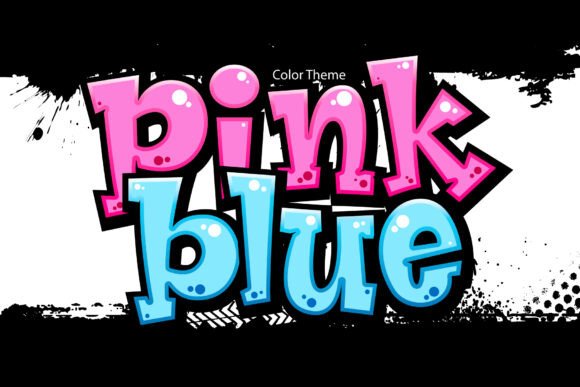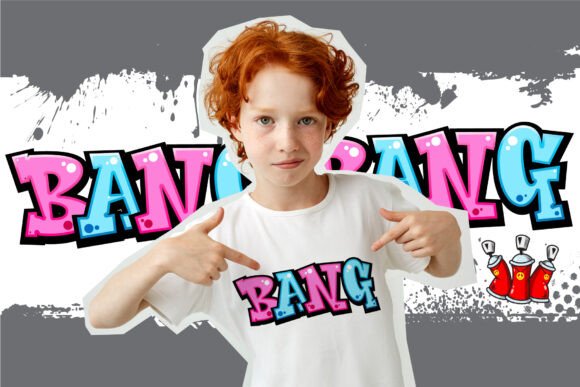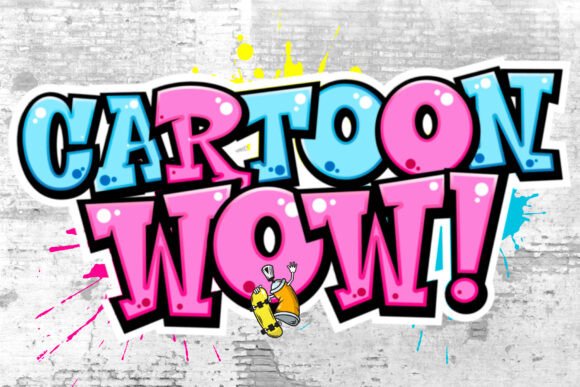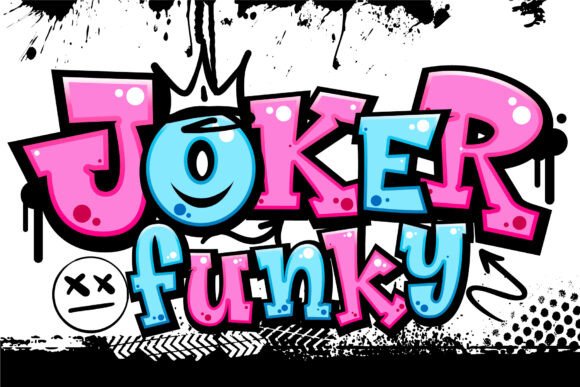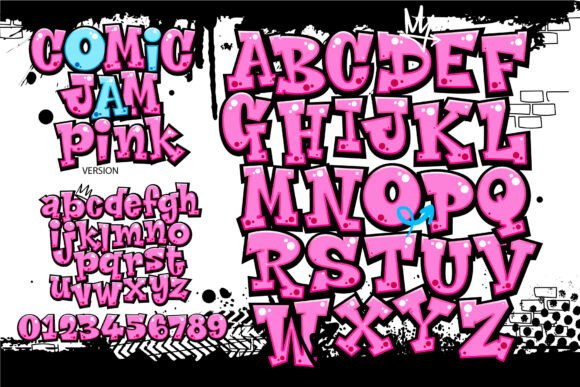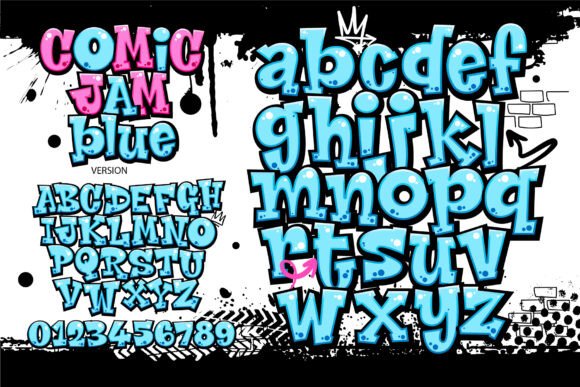
Introducing Comic Jam Font: Elevate Your Designs with Vibrant Color and Dynamic Style
Step into a world of bold, vibrant color with Comic Jam, a stunningly unique comic display font that is sure to revolutionize your creative projects. This expertly crafted font is a symphony of dynamic pink and blue hues that dance off the page, promising to elevate your designs to new heights. Whether you’re a designer, crafter, or DIY enthusiast, Comic Jam is the perfect tool to transform your vision into reality and witness your ideas soar to their fullest potential.
A Game-Changing Typography Tool
Comic Jam is not just a typography tool; it’s a game changer. This font perfectly blends visual impact and functional design, making it an essential addition to your creative arsenal. With its bold and vibrant color scheme, Comic Jam is sure to grab attention and leave a lasting impression. Whether you’re creating posters, flyers, social media graphics, or craft projects, this font is designed to make your designs stand out from the crowd.
Unlocking Your Creative Potential
Comic Jam is more than just a font; it’s a creative catalyst. With its dynamic color scheme and bold design, this font has the power to unlock your creative potential and take your designs to new heights. Whether you’re looking to create stunning visual graphics, craft beautiful DIY projects, or simply add a pop of color to your designs, Comic Jam is the perfect tool for the job.
Why Choose Comic Jam?
So, why choose Comic Jam over other fonts? Here are just a few reasons why this font stands out from the crowd:
- Unique and eye-catching design: Comic Jam’s dynamic color scheme and bold design make it a standout font that’s sure to grab attention.
- Game-changing creativity: Comic Jam has the power to transform your designs and take your creativity to new heights.
In conclusion, Comic Jam is a game-changing font that’s sure to revolutionize your creative projects. With its bold and vibrant color scheme, dynamic design, and versatility, this font is perfect for designers, crafters, and DIY enthusiasts alike. Whether you’re looking to create stunning visual graphics, craft beautiful DIY projects, or simply add a pop of color to your designs, Comic Jam is the perfect tool for the job. So why wait? Download Comic Jam today and unlock your creative potential!